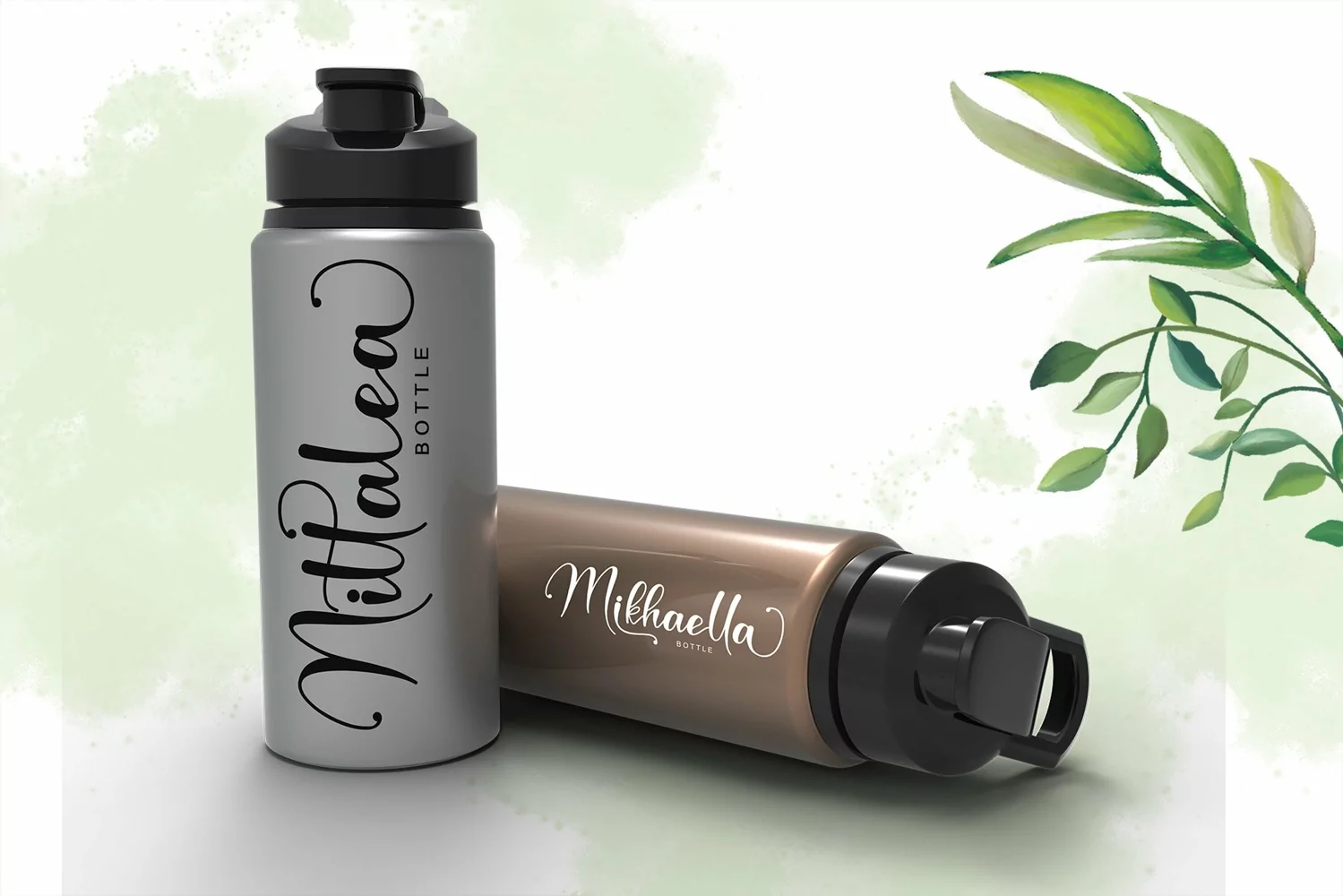
Beautiful Handwritten
Mathella
Mathella is a Calligraphy Style font by Letterafa Studio. It has flowing letters that will give your designs a unique and sweet look. Mathella font is perfect; logos, greeting cards, a package design, a brand identity, craft design, any DIY project, book title, wedding invitation, packaging, and more.
- Basic Uppercase and Lowercase
- Swashes and Titling
- Ligature
- Number and Punctuation